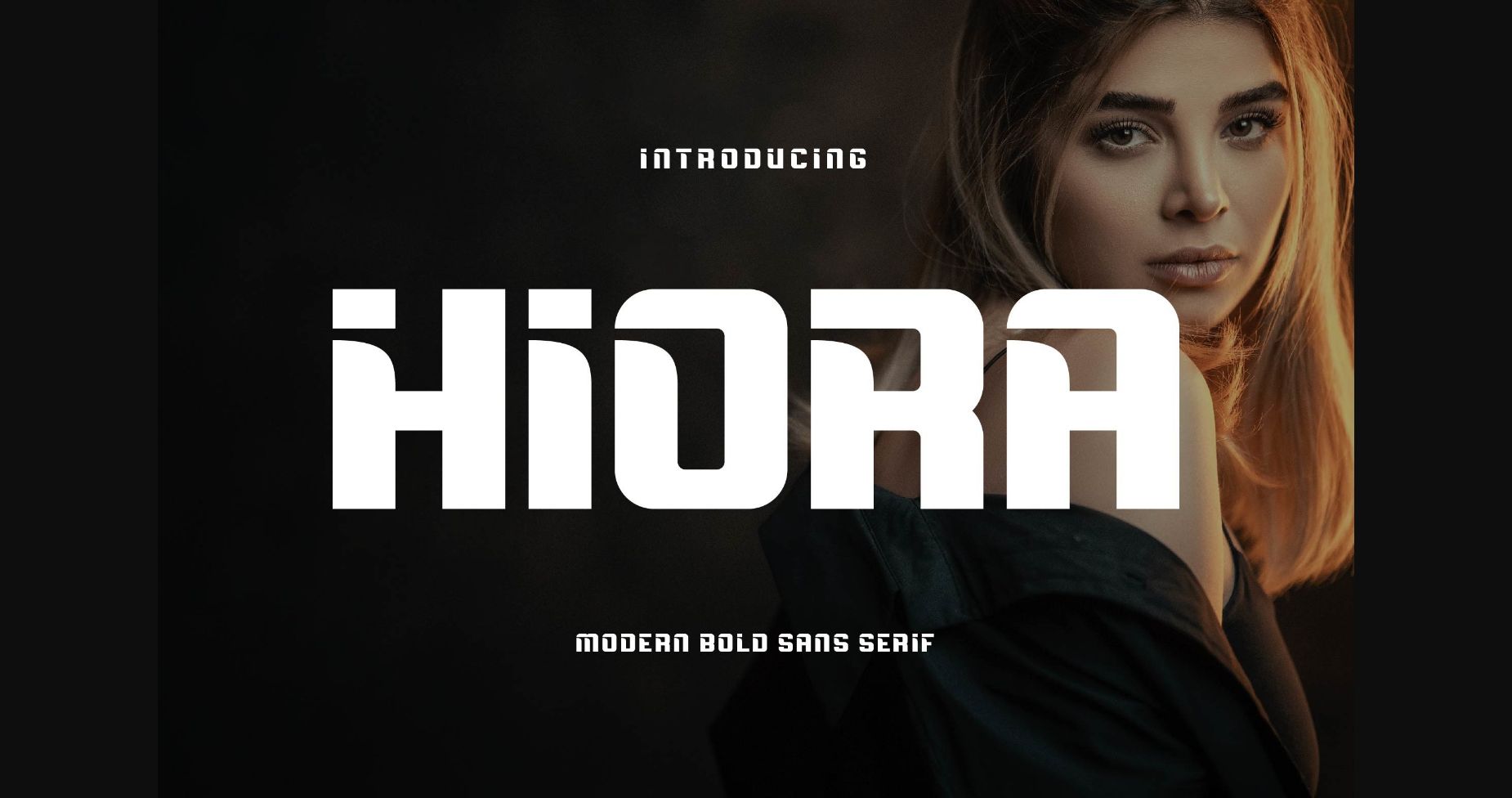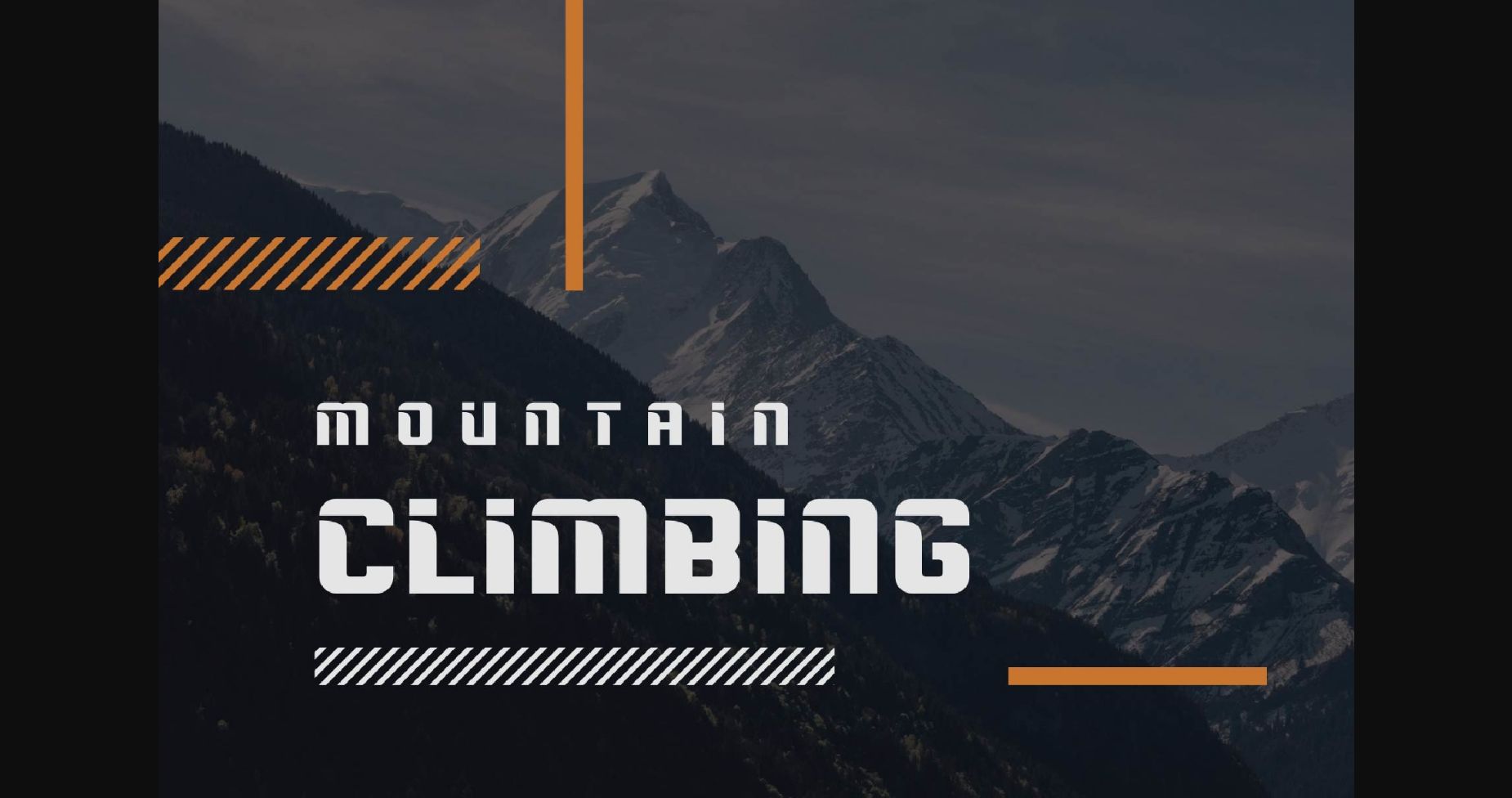
About Hiora Font
Hiora Sans Font Typeface inspired by the famous minimalist logo is perfect for the purposes of designing templates, brochures, videos, advertising branding, logos, invitation, layout design, elegant crafting, beauty design and others.